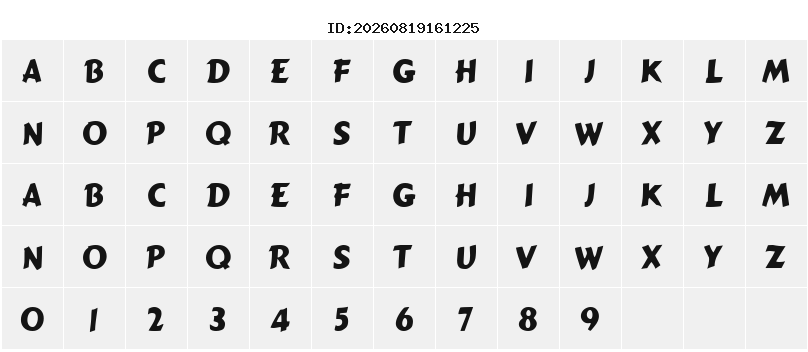
• Font Name: Signboard
• Full Font Name: Signboard Regular
About Signboard.ttf
Signboard.ttf is a modern, elegant sans-serif font designed for ultimate readability and visual harmony. Perfect for branding, headlines, web design, and print materials.